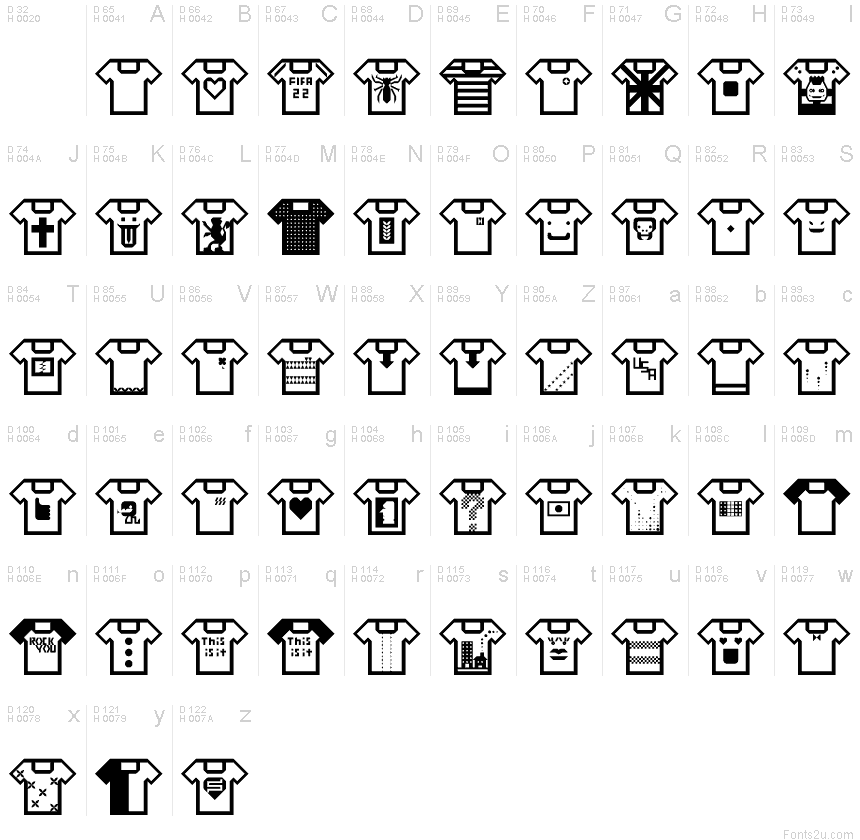
T-shirt by momonga of FontShop International GmbH is a free clothing dingbat font built from crisp, outlined tee silhouettes. Each shirt carries a different interior treatment, including small emblems, dense textures, scattered marks, and simple vertical details, so the collection feels varied but visually consistent.
Streetwear and casual fashion themes are the clearest match. The symbols can enliven apparel catalogs, event posters, merchandise graphics, and youth-oriented branding with an immediate clothing reference. Used as badges or spot illustrations, the shirt forms become actual product icons rather than ordinary lettering.